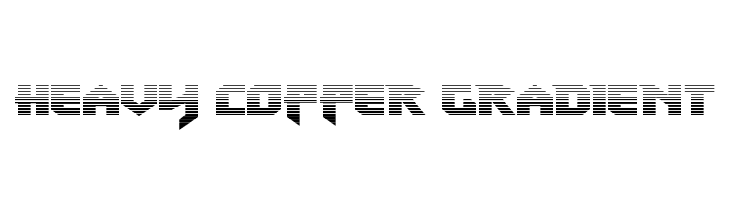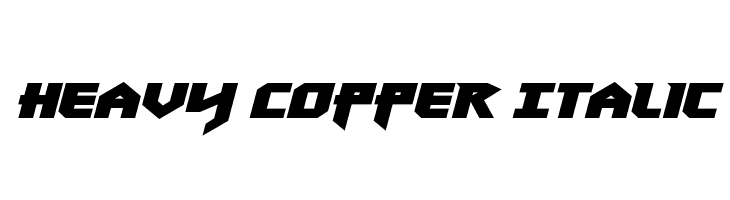
• Heavy Copper Super-Italic
A bold, angular, and italic font with a dynamic and modern style.
• Heavy Copper Expanded Italic
A bold, angular, and italic font with an expanded width for dynamic designs.
• Heavy Copper Condensed Italic
A bold, condensed, and italicized font with sharp angles and a modern style.
• Heavy Copper Semi-Italic
A bold, angular font with a semi-italic slant and futuristic style.
• Heavy Copper
A bold, angular font with a futuristic and aggressive style.
• Heavy Copper 3D
A bold, geometric font with a 3D effect and sharp angles.
• Heavy Copper Gradient
A bold, futuristic font with a striped, geometric design.
• Heavy Copper Condensed
A bold, geometric font with sharp angles and a condensed structure.
• Heavy Copper Expanded
A bold, angular font with a futuristic and industrial style.
• Heavy Copper Italic
A bold, angular, and italicized font with a futuristic style.